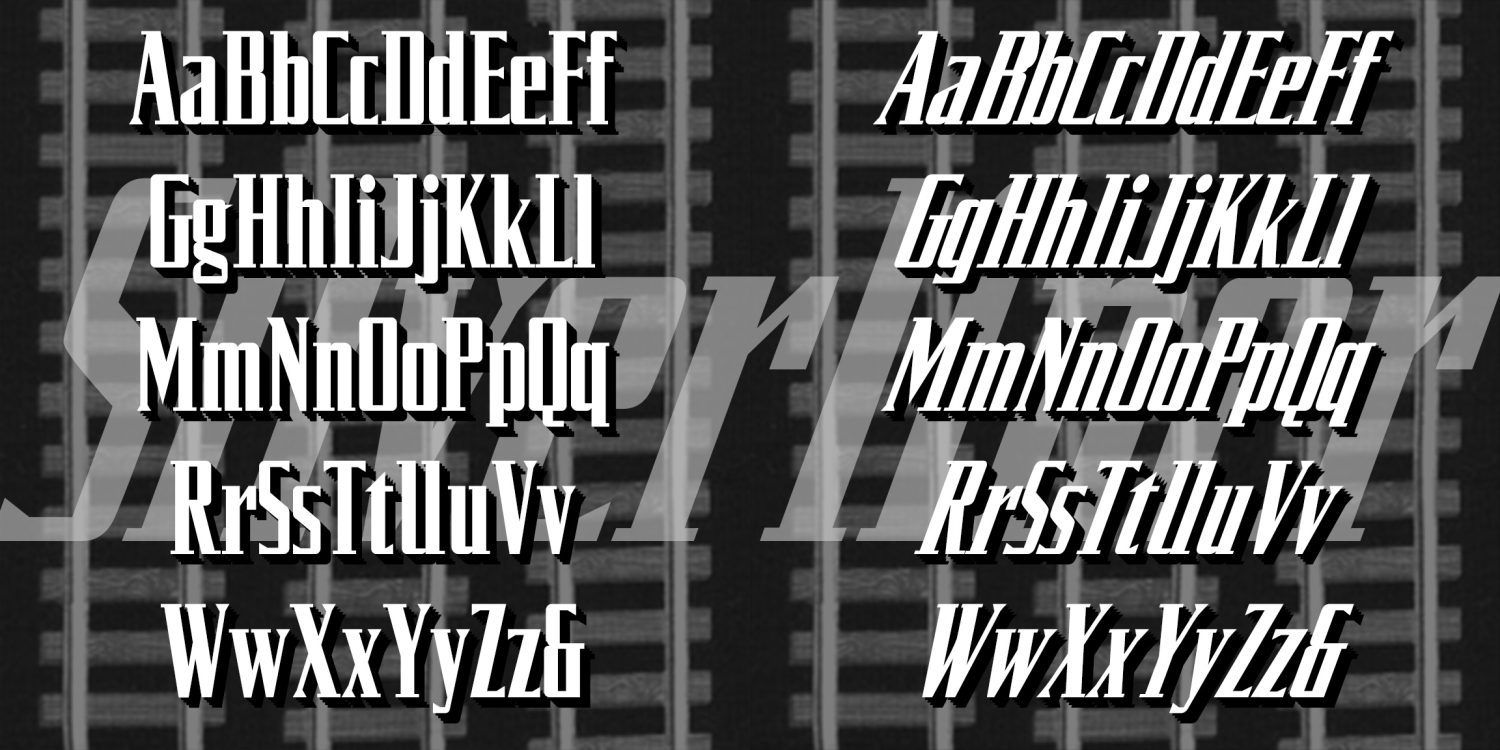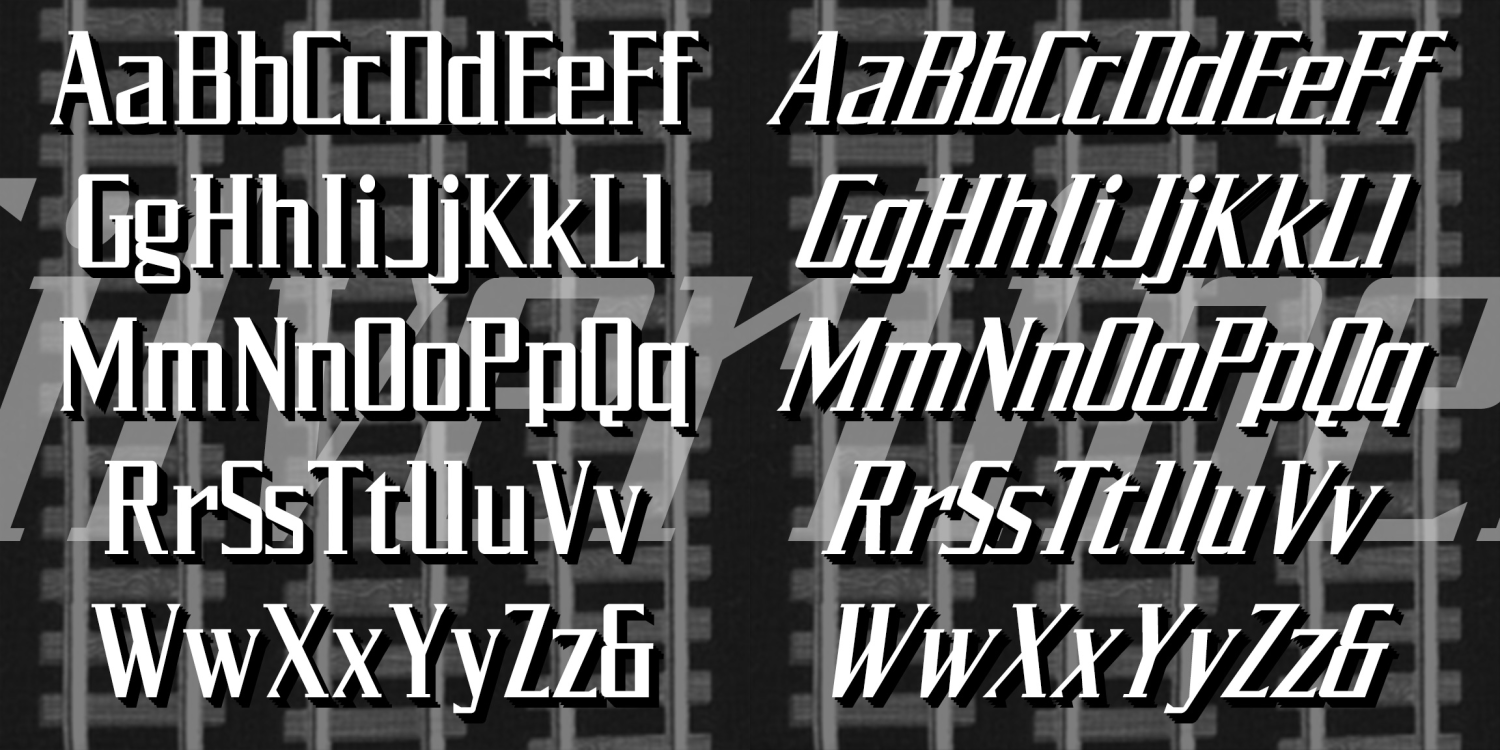
Silverliner
SILVERLINER suggest the smooth, sleek feel of vintage rail transport. It was inspired by the credits for the 1951 Warner Bros film "Strangers on a Train", directed by Alfred Hitchcock. The font suggests the smooth, sleek feel of vintage rail transport. In two widths, each in Regular and super-slanted Oblique.
The Silverliner font family includes 200 glyphs.